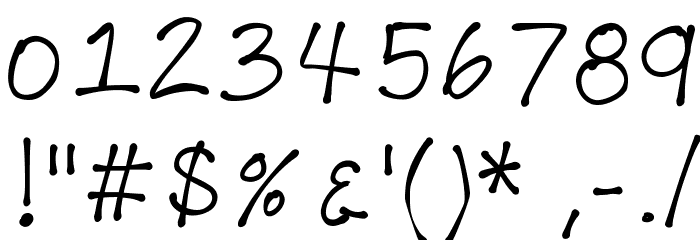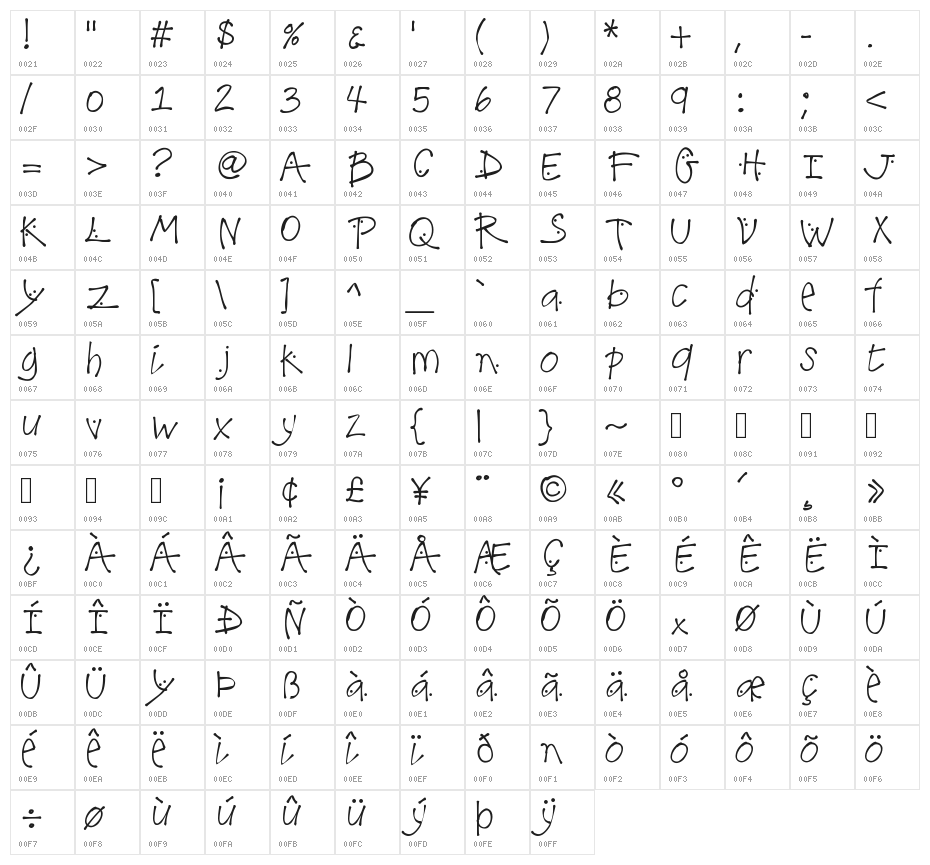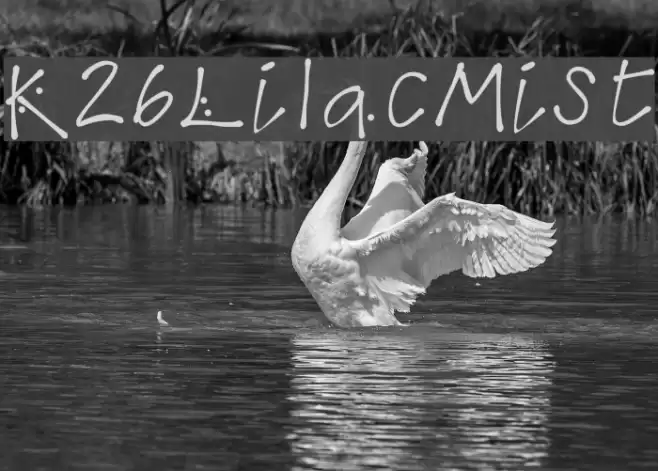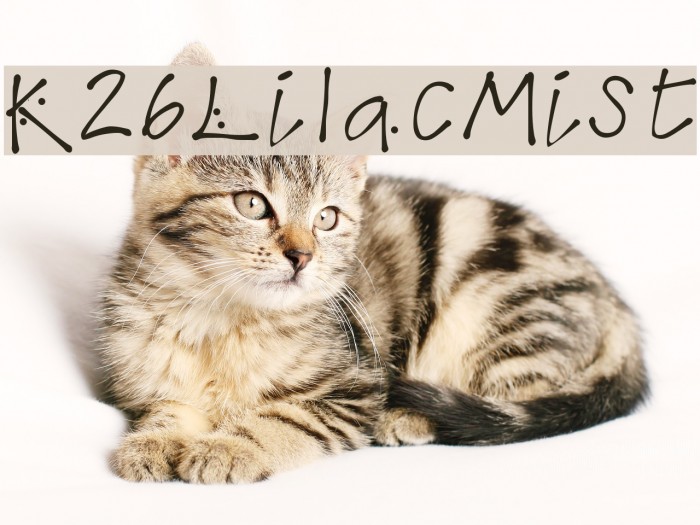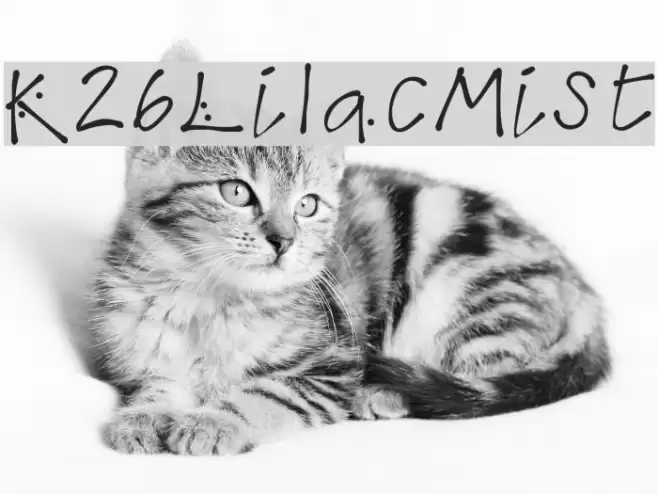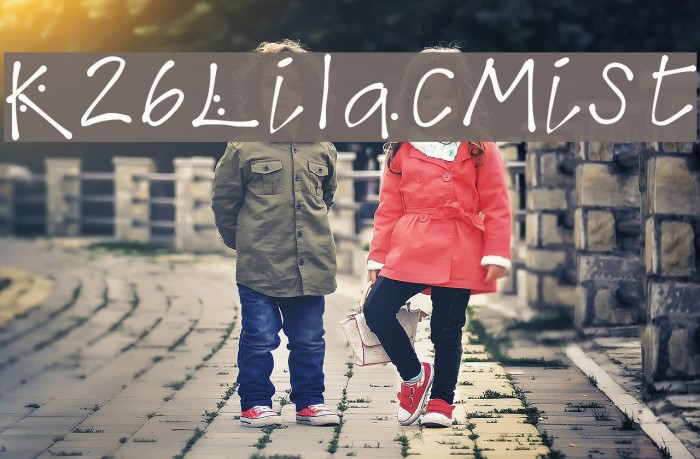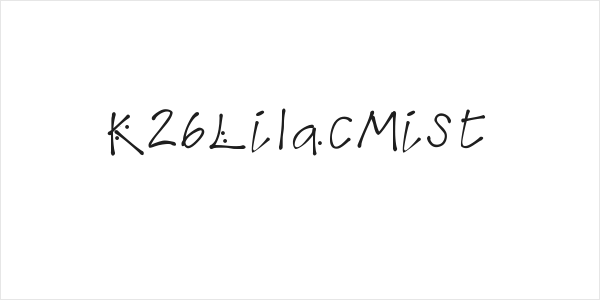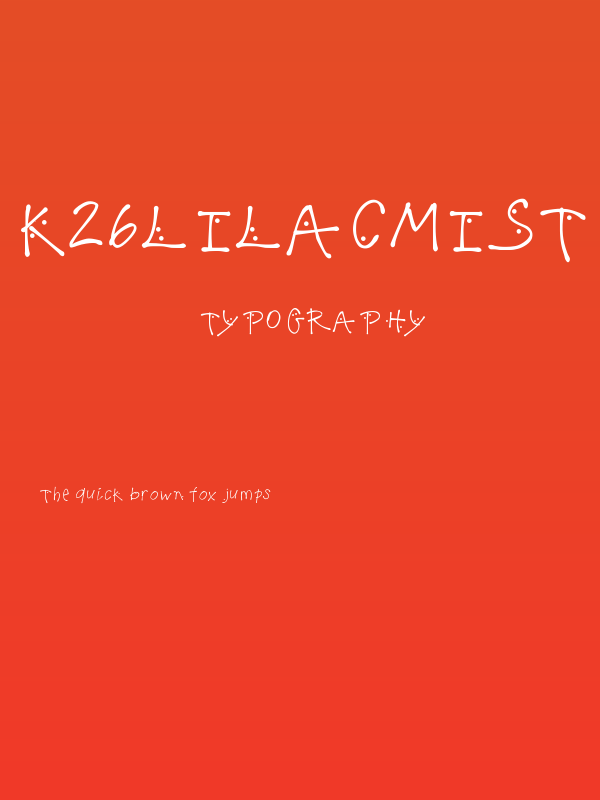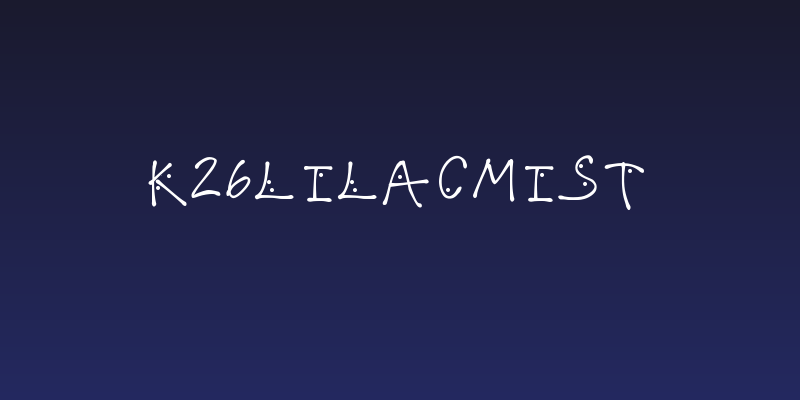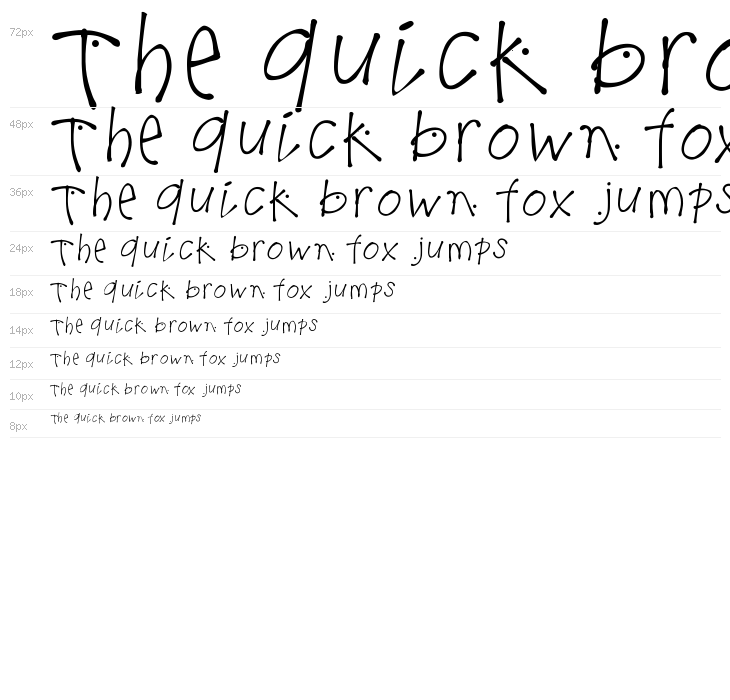
K26LilacMist Font
K26LilacMist Description
This font features a playful and whimsical handwritten style, characterized by its irregular and slightly uneven strokes. The letters have a casual and informal appearance, with a unique charm that adds personality to any text. The uppercase and lowercase letters maintain a consistent style, with rounded edges and varying stroke widths that give a lively and dynamic feel. The numerals and special characters follow the same playful design, making the font versatile for creative projects. Its distinctiveness lies in the subtle variations between characters, which enhance its handwritten authenticity.
| Proposed Projects | Ideal for greeting cards, children's books, playful branding, and creative invitations. |